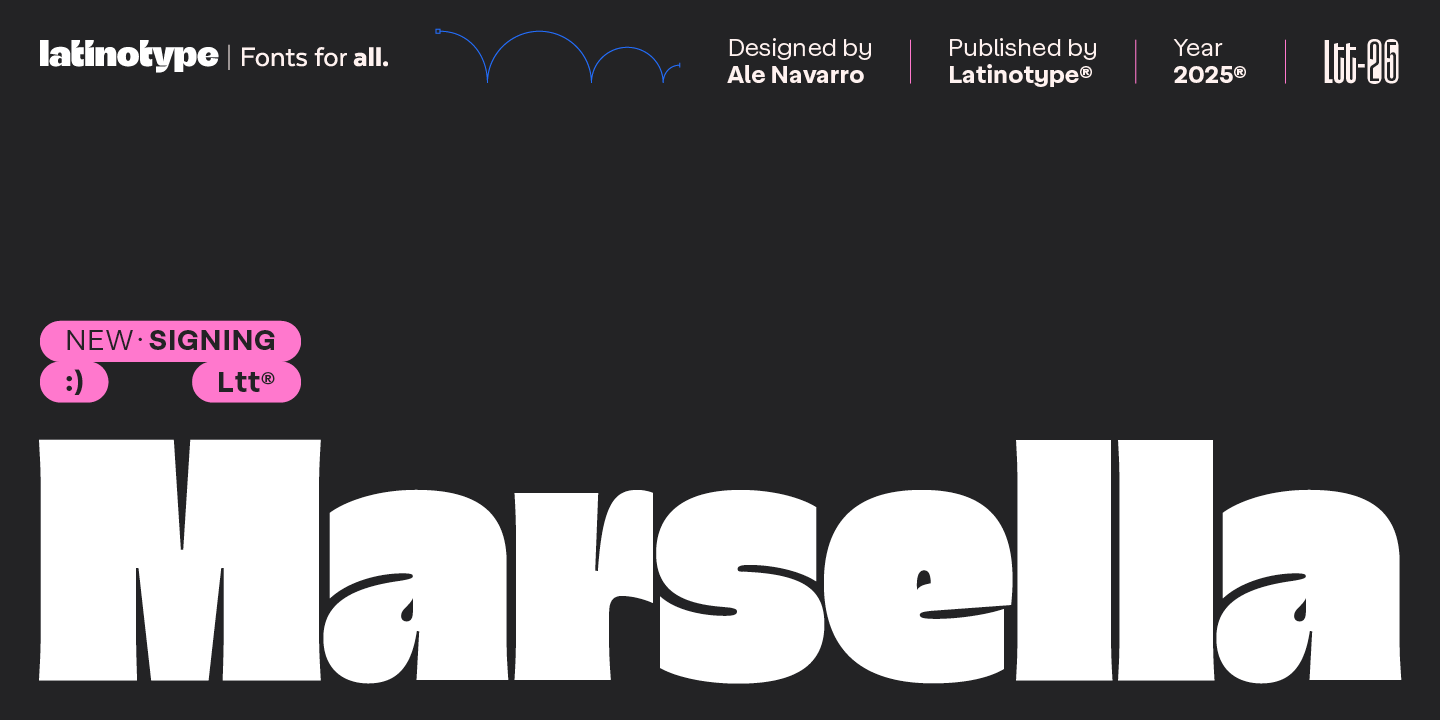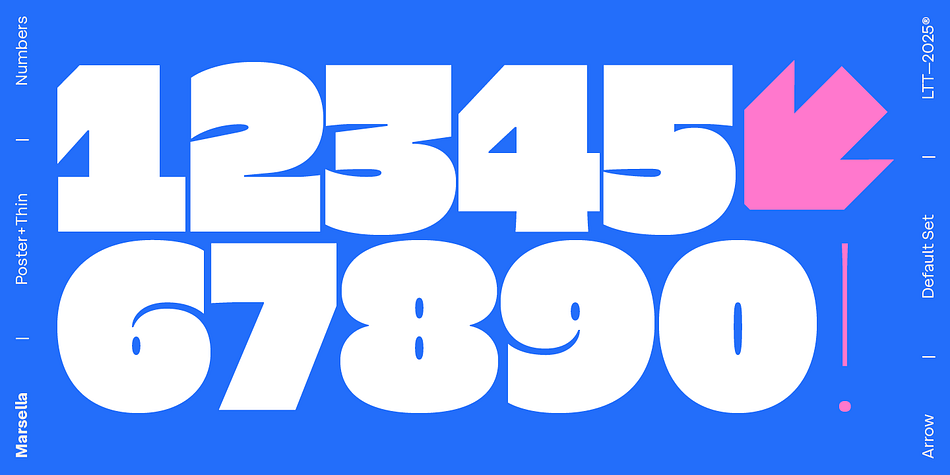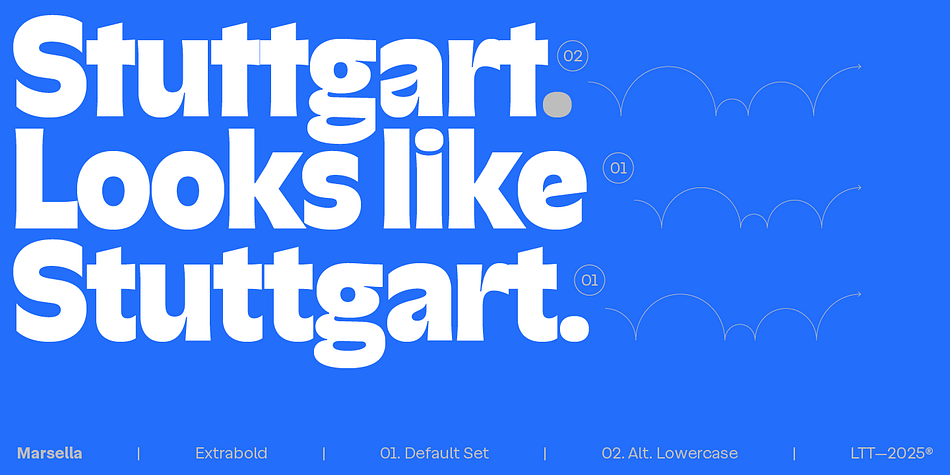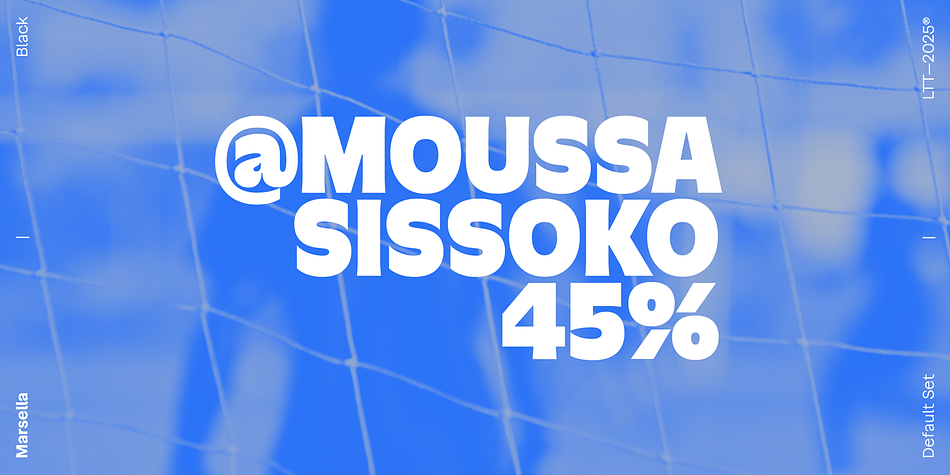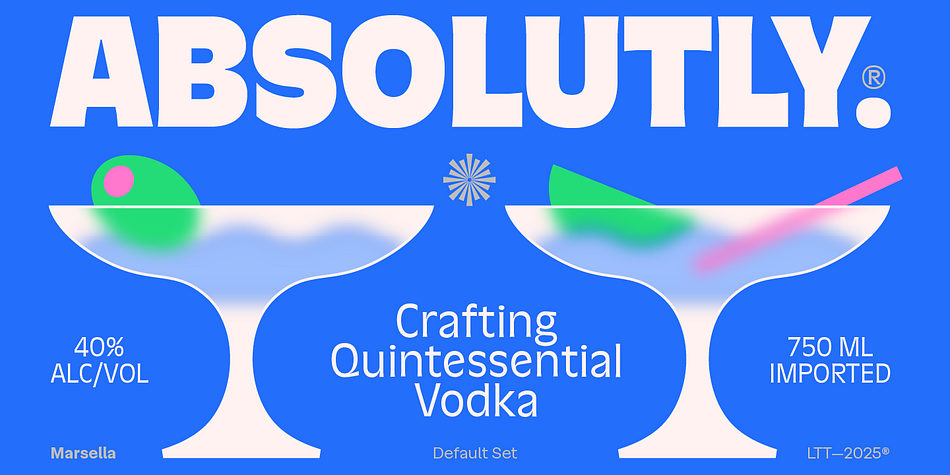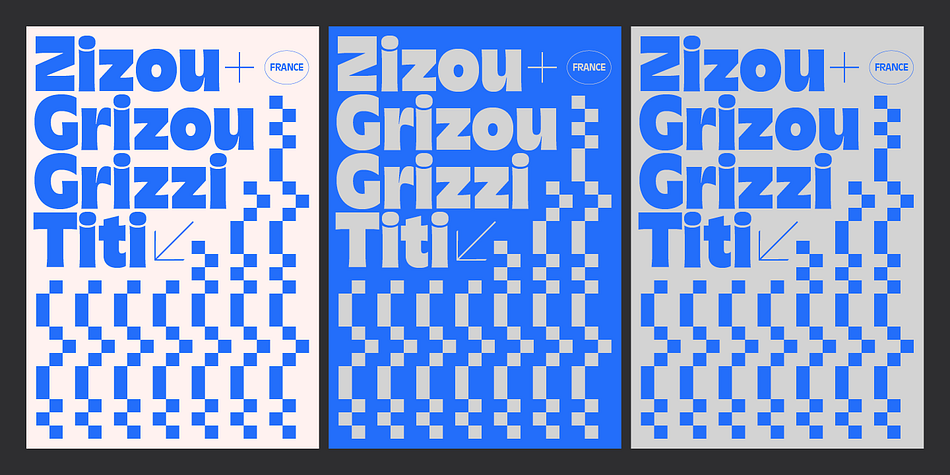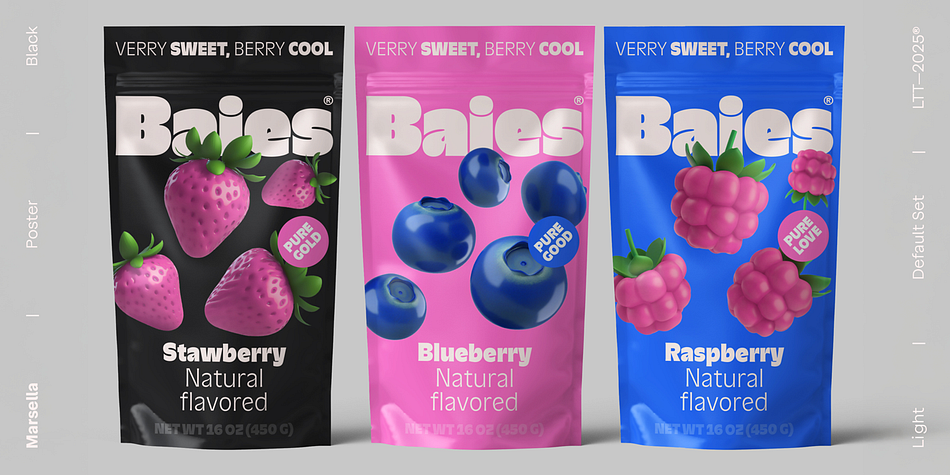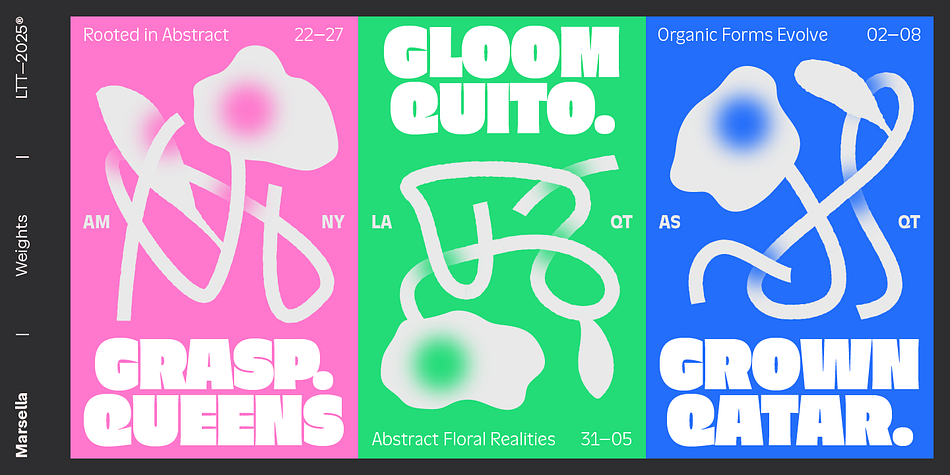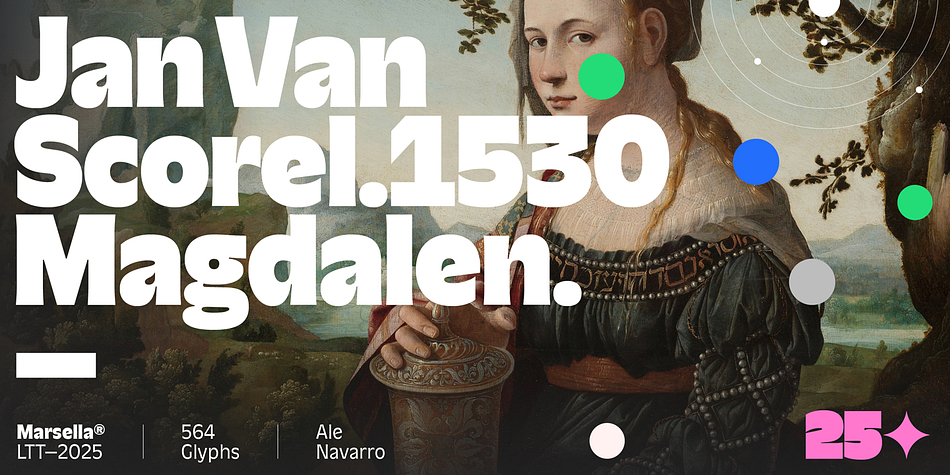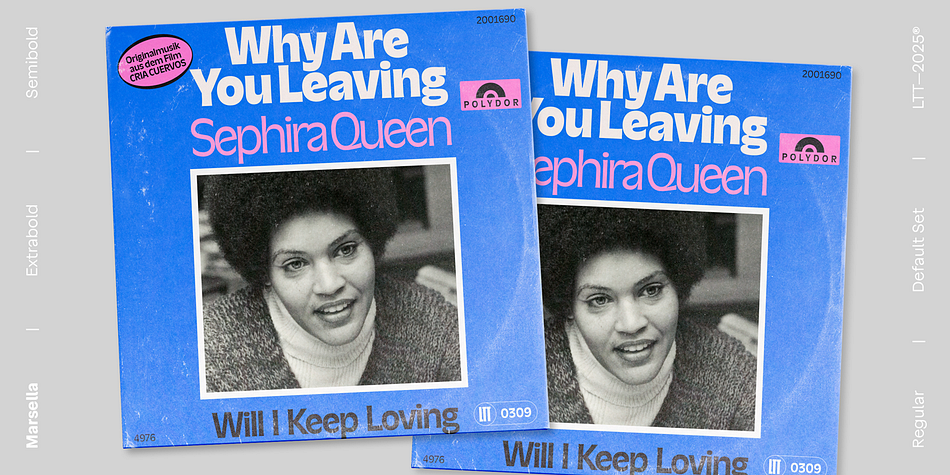
Marsella
Designed by Latinotype Team, Marsella is a sans serif font family. This typeface has ten styles and was published by Latinotype.
Marsella is a typeface that reinterprets the spirit of French humanist fonts from the 1960s with a modern, artisanal touch. Its generous x-height, delicate serifs, and balanced proportions create a refined, timeless aesthetic. Crafted with precision, Marsella offers weights from Thin to Black, along with a Poster variant that elevates spaces with compact, dynamic compositions.
Featuring alternative glyphs that expand its versatility, improve visual flow, and ensure a harmonious design, Marsella provides a repertoire of 575 glyphs—inviting you to “dream big and design in detail”.